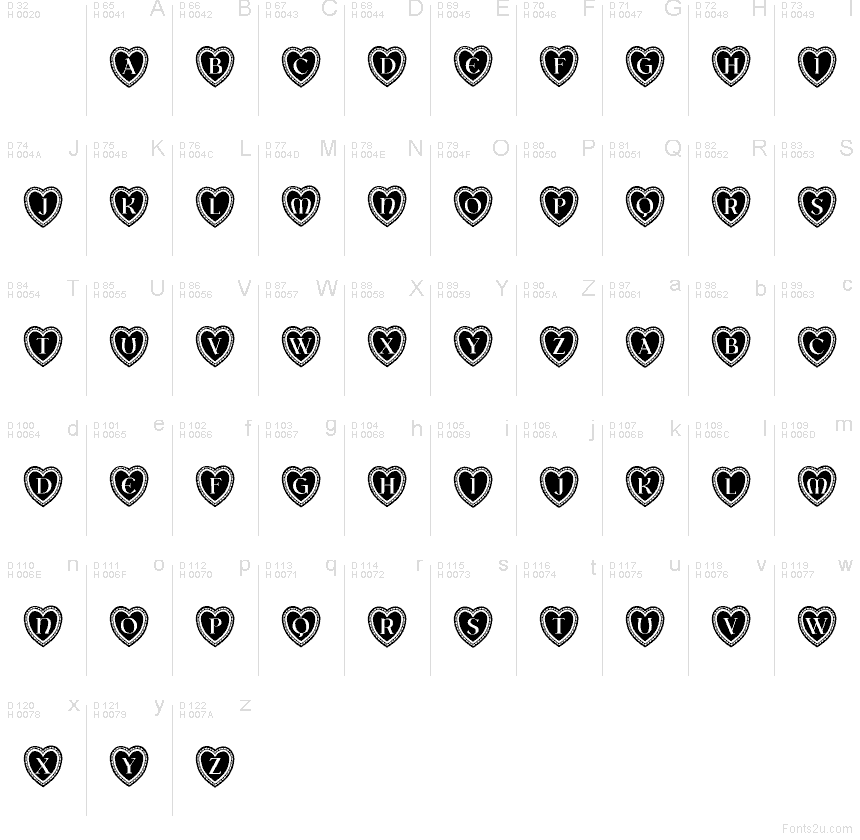
Licitar Filled font by Vladimir Nikolic is a free decorative holiday typeface that captures the charm of handmade Valentine sweets. Each letter sits inside a bold black heart with crisp white outlines and tiny dotted trim, like piped icing on a cookie. The consistent heart tiles line up in a satisfying row, turning any word into a candy-shop banner full of romance and playful nostalgia.
Using Licitar Filled, your text instantly becomes a ready-made Valentine motif, perfect for greeting cards, gift tags, party banners, stickers, social posts, and themed packaging. This free font works beautifully at larger sizes where the lacy borders and negative-space letters can really show. Pair the Licitar family with a clean sans-serif for supporting text to keep your designs sweet but readable.
Licitar Filled